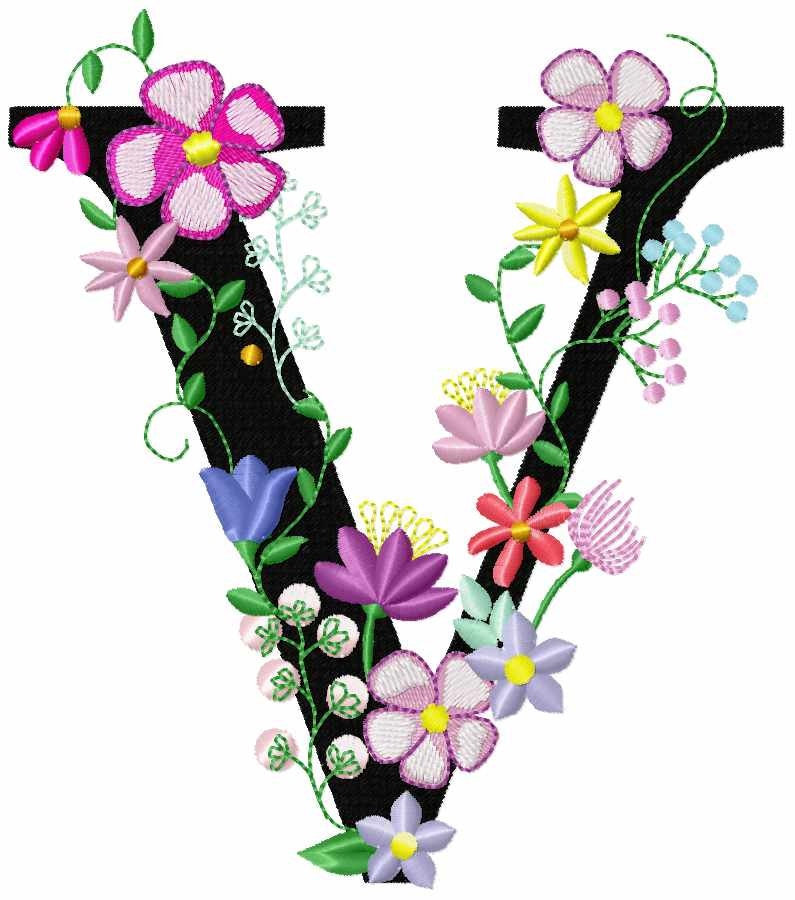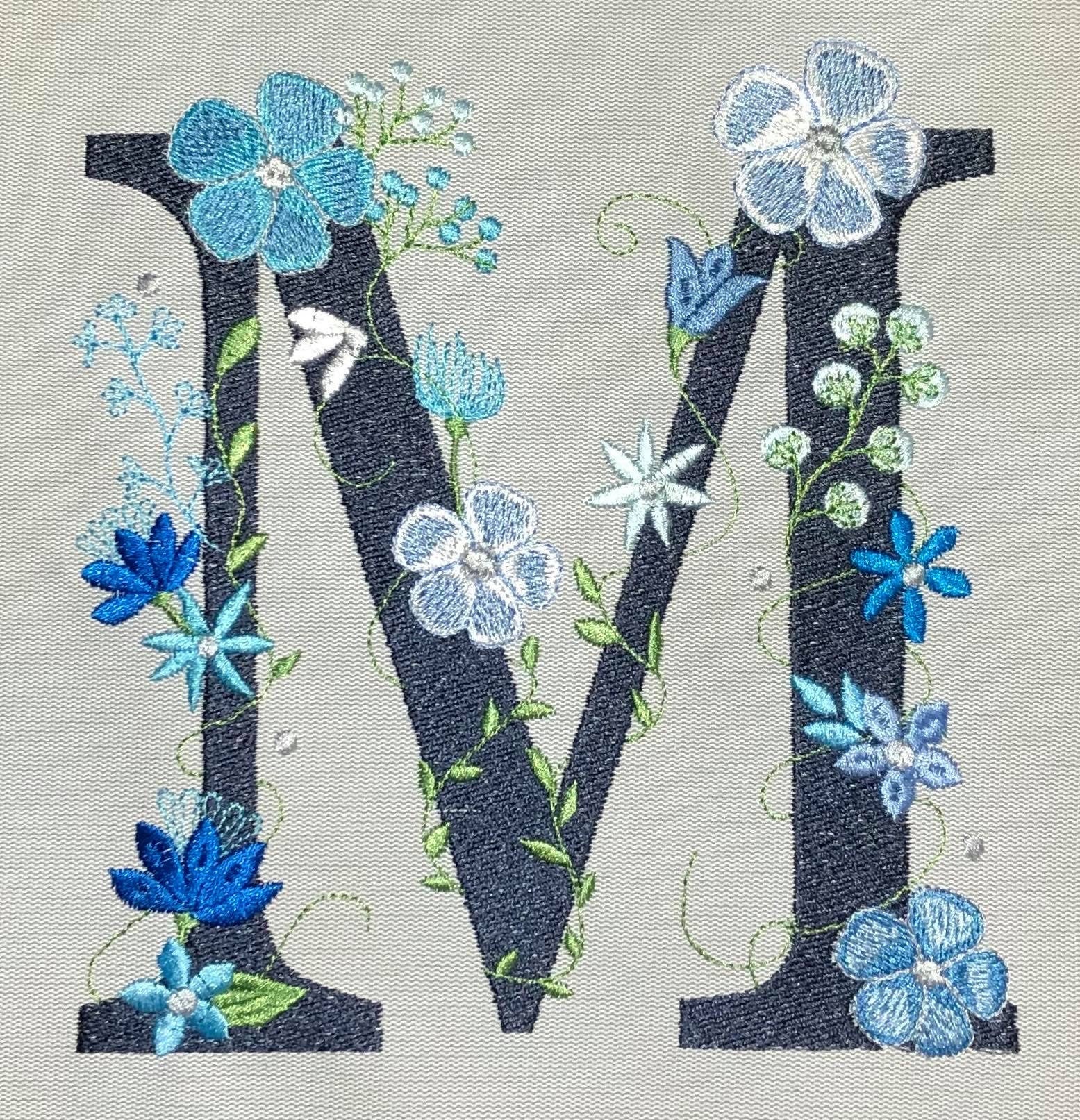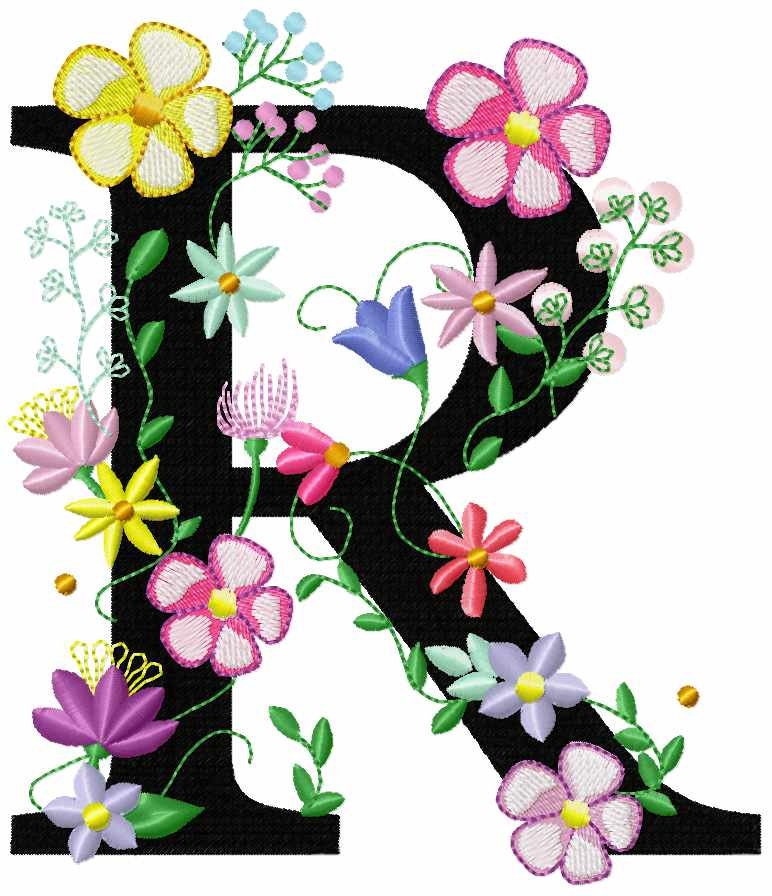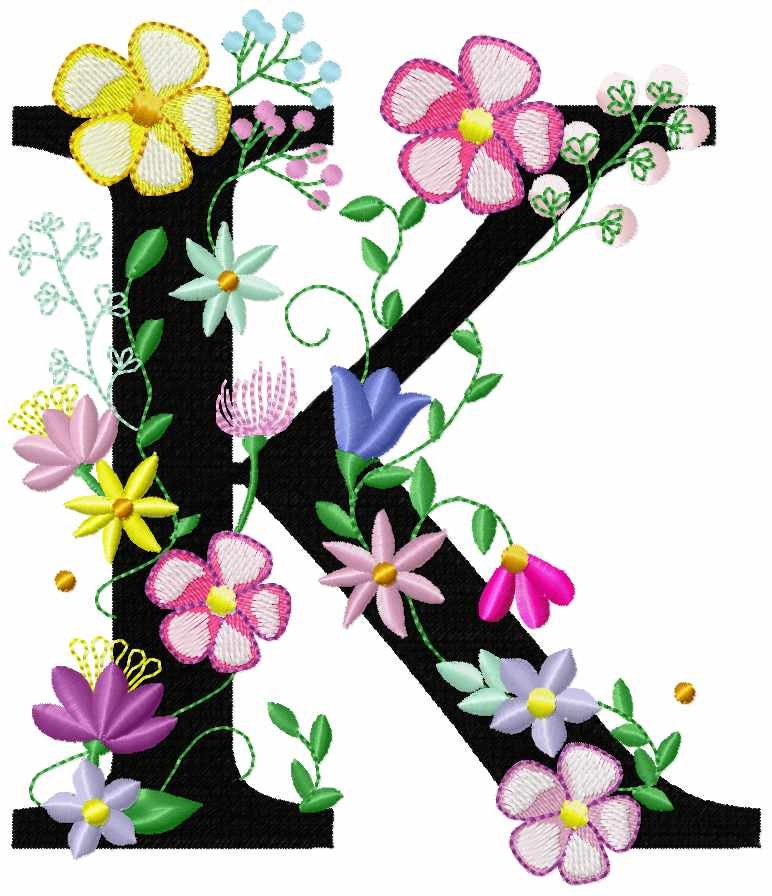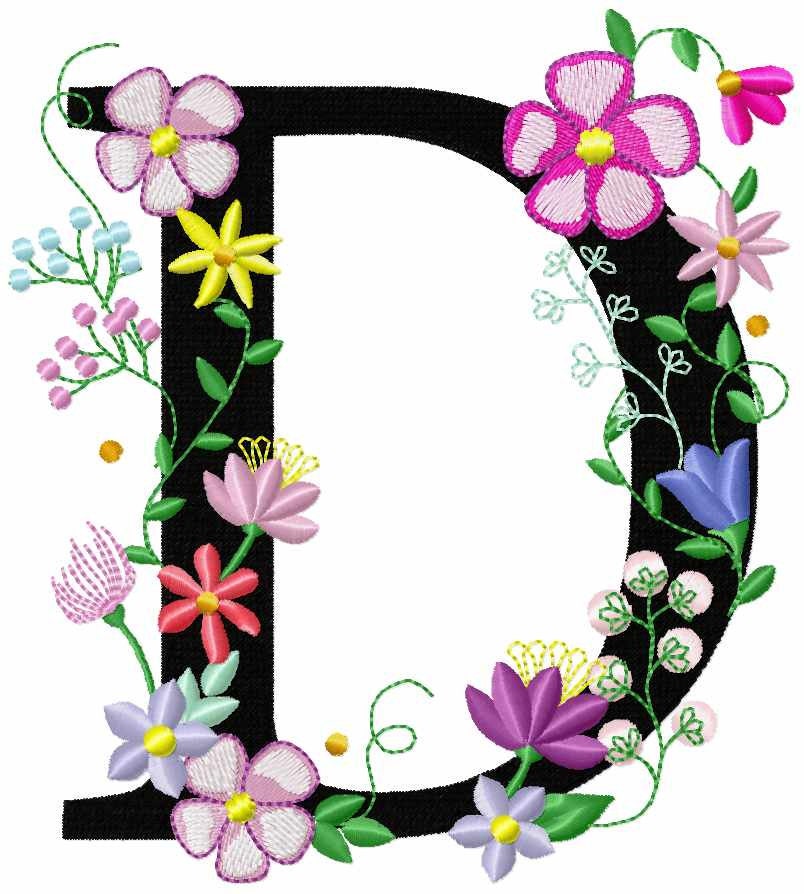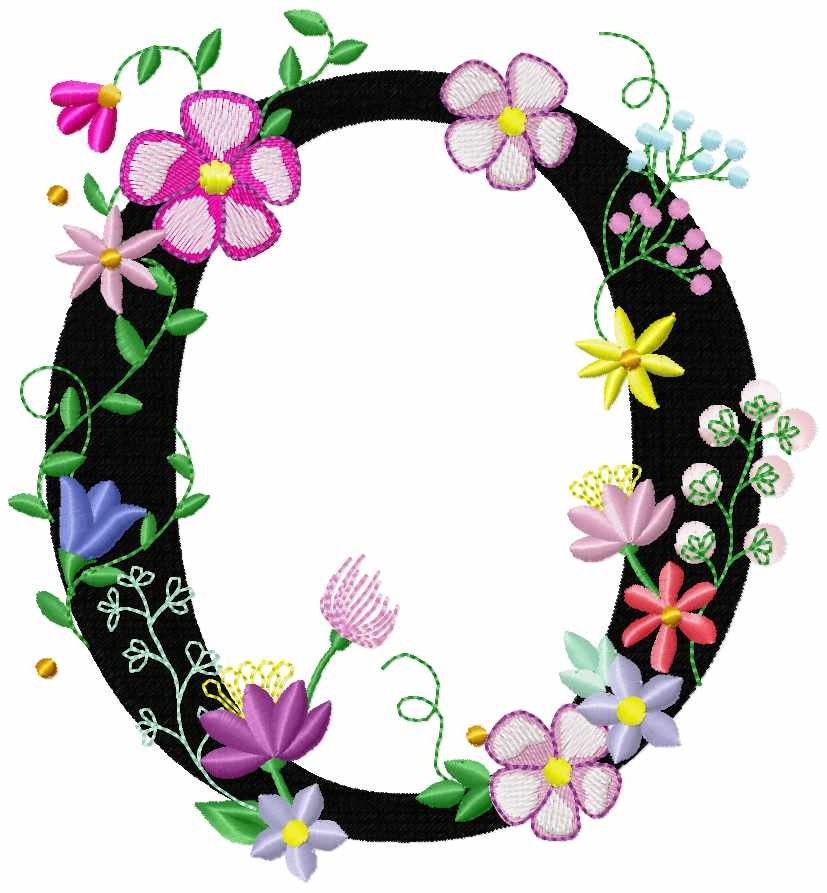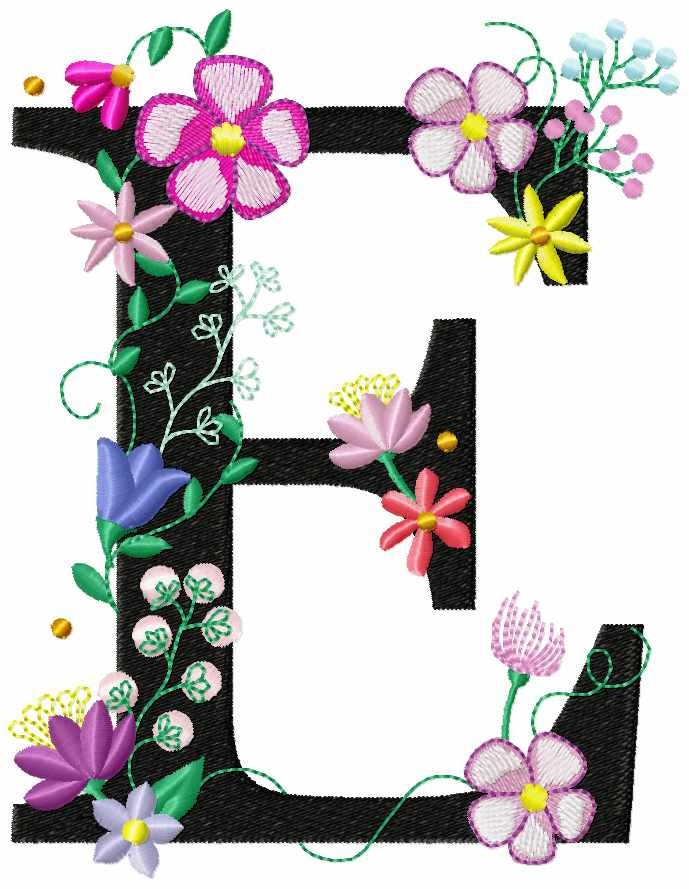
Floral Garden Flag Monogram Font
Included: Uppercase A-Z
A floral block monogram with lace swirls and wildflowers, for garden flags, pillows and home decor.
All 26 letters, A to Z, each decorated with flowers and lacy swirls, in five sizes: 4, 5, 6, 7 and 8 inches.
• Floral lace swirl monogram
• 26 letters, A to Z